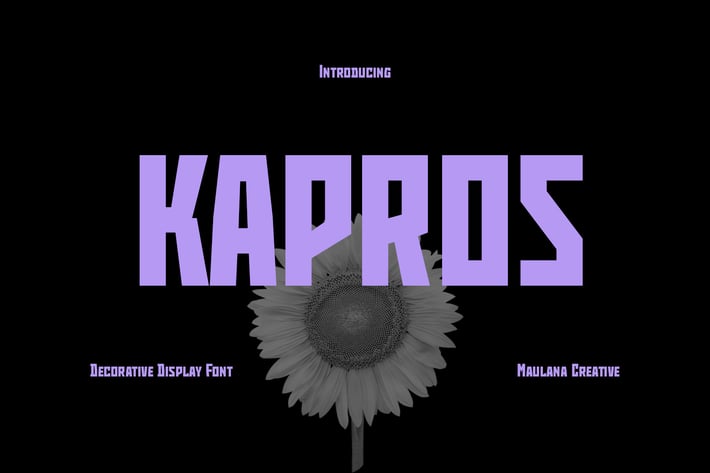
Kapros Decorative Display Font
Kapros is a modern tech square decorative Display font. Bold stroke, fun character with a bit of ligatures and alternates. To give you an extra creative work. Kapros font support multilingual more than 100+ language. This font is good for logo design, Social media, Movie Titles, Books Titles, a short text even a long text letter and good for your secondary text font with script or serif. Make a stunning work with Kapros font.